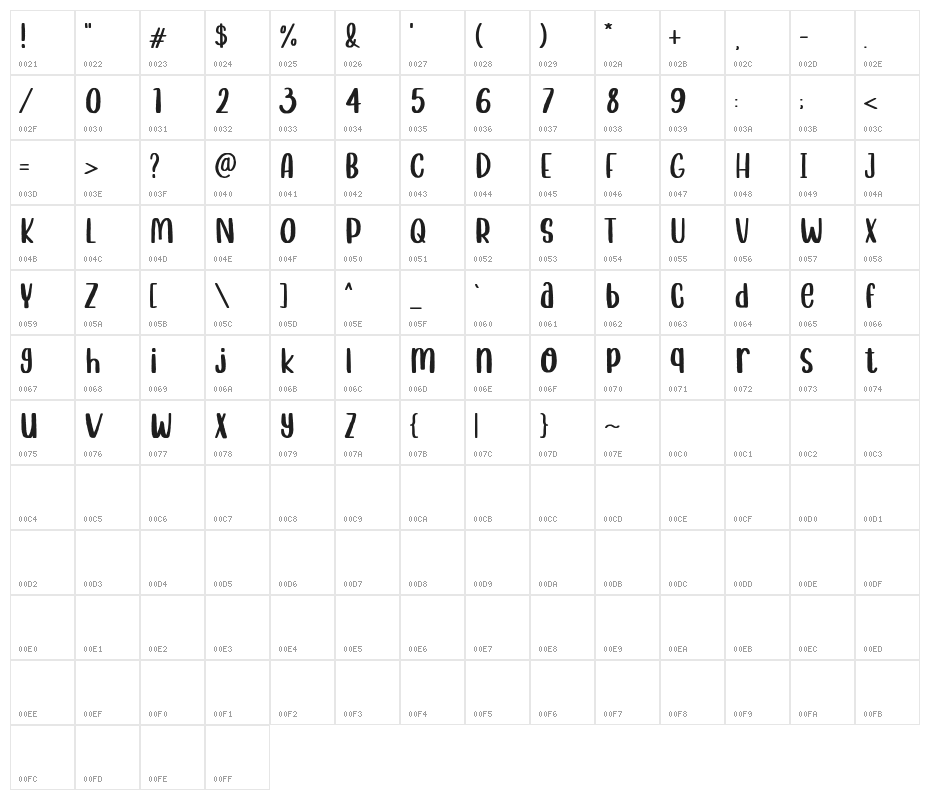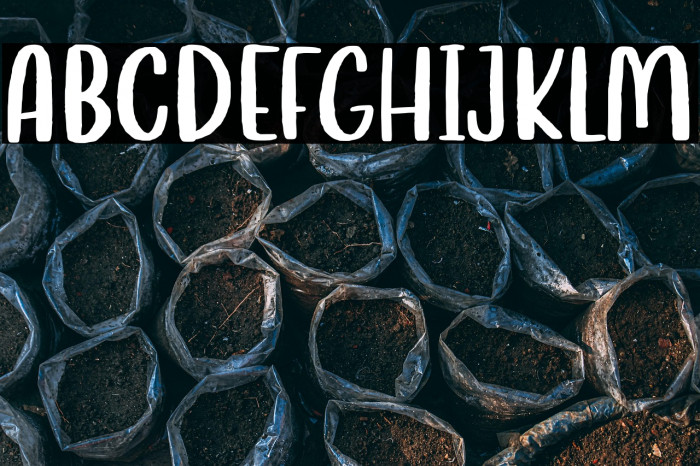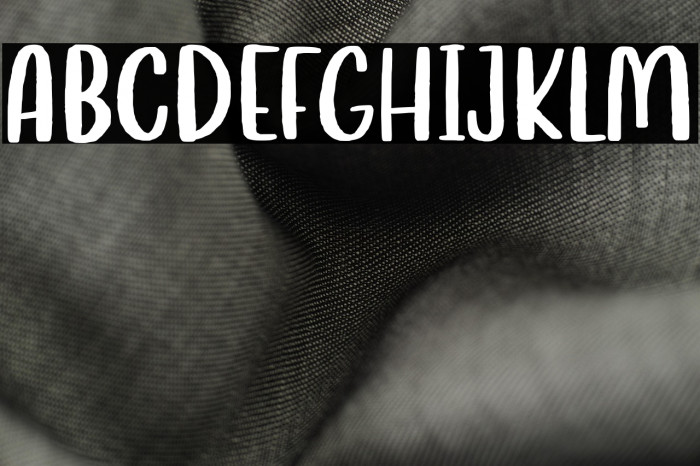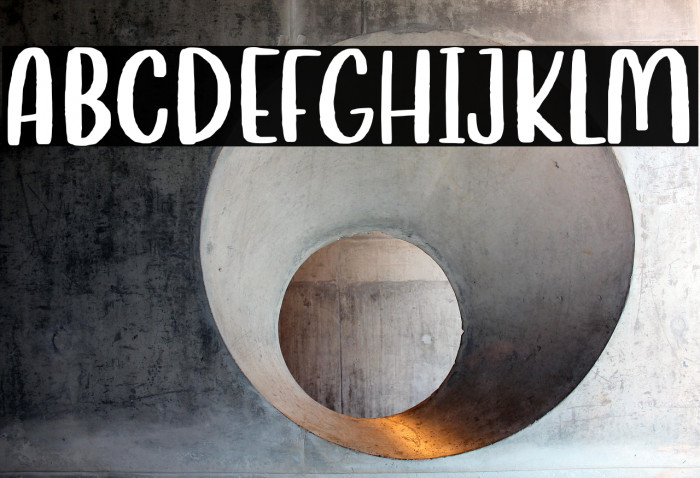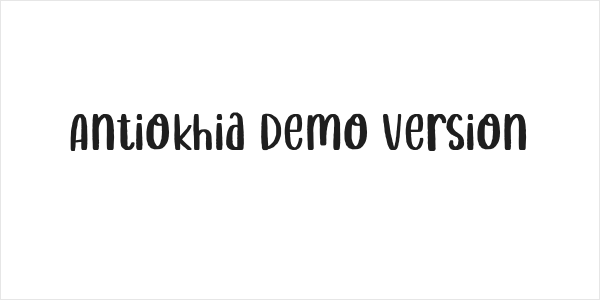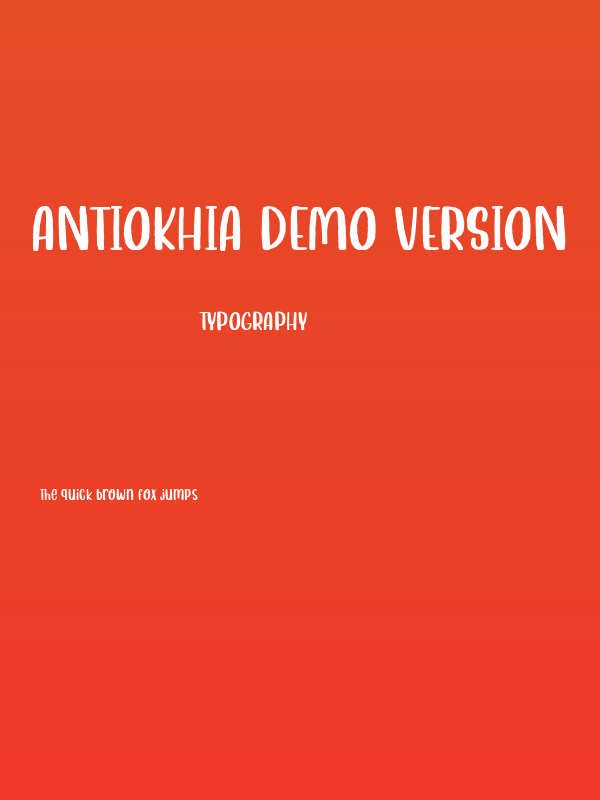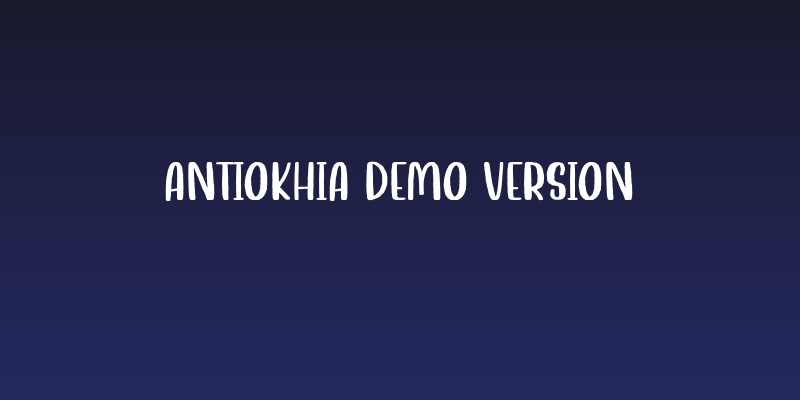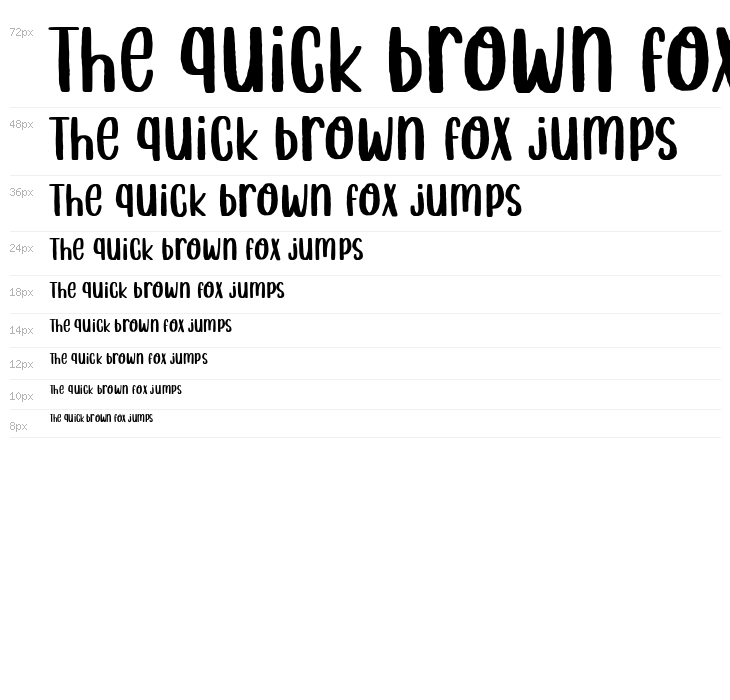
Antiokhia Demo Version Font
Antiokhia Demo Version Description
This font features a bold and playful handwritten style, characterized by its thick strokes and slightly irregular letterforms that give it a casual and friendly appearance. The uppercase and lowercase letters maintain a consistent width, while the numbers and special characters integrate seamlessly with the overall design. The font's organic curves and rounded edges contribute to its approachable and informal aesthetic, making it suitable for projects that aim to convey warmth and creativity. Its unique style is versatile enough to be used in various design contexts, from branding to digital media.
| Overall Style | Playful, Casual |
| Proposed Projects | Ideal for branding, social media graphics, children's books, and creative posters. |